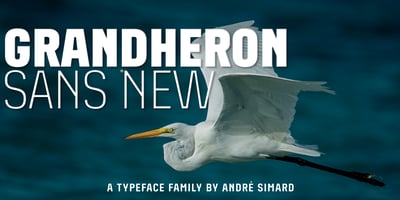
The Grandheron Sans New Font is incredibly versatile and shines in a wide array of applications where clarity, high-end aesthetics, and a minimalist appeal are paramount. Its often geometric or humanist sans-serif design, characterized by clean lines, open forms, and impeccable balance, makes it an ideal choice for luxury branding, high-fashion editorials, and premium product packaging. It's perfect for corporate communications, sophisticated website interfaces, and modern art gallery displays, ensuring effortless readability and a polished user experience. Furthermore, consider Grandheron Sans New Font for app design, UI/UX elements, and extensive editorial layouts where a refined, contemporary, and highly functional typeface is needed. Its robust yet elegant character also makes it excellent for signage, information design, and large-scale displays.
What makes the Grandheron Sans New Font so exciting is its remarkable ability to blend understated sophistication with a distinctive, enduring quality. It often features precise curves and balanced proportions that give it a unique personality without being overly decorative. This characteristic allows it to communicate a sense of exclusivity, innovation, and thoughtful design, making your message resonate with an audience that appreciates refined aesthetics and modern vision. It's a font that doesn't just display text; it enhances the visual narrative, adding a layer of contemporary charm and polished appeal to any creative endeavor. Its unique aesthetic ensures your work will stand out with a memorable and refined presence.
The Grandheron Sans New Font family typically boasts a comprehensive range of weights to maximize its utility and allow for robust typographic hierarchies. You'll often find a wide selection, from Thin and Light to Regular, Medium, SemiBold, and Bold, usually accompanied by corresponding italic styles. More extensive families might even include ExtraBold or Black weights, providing even greater flexibility for creating distinct visual impacts, from delicate headlines to strong emphasis. This broad spectrum ensures designers can maintain a consistent visual theme while adapting the font to diverse design needs and contexts.